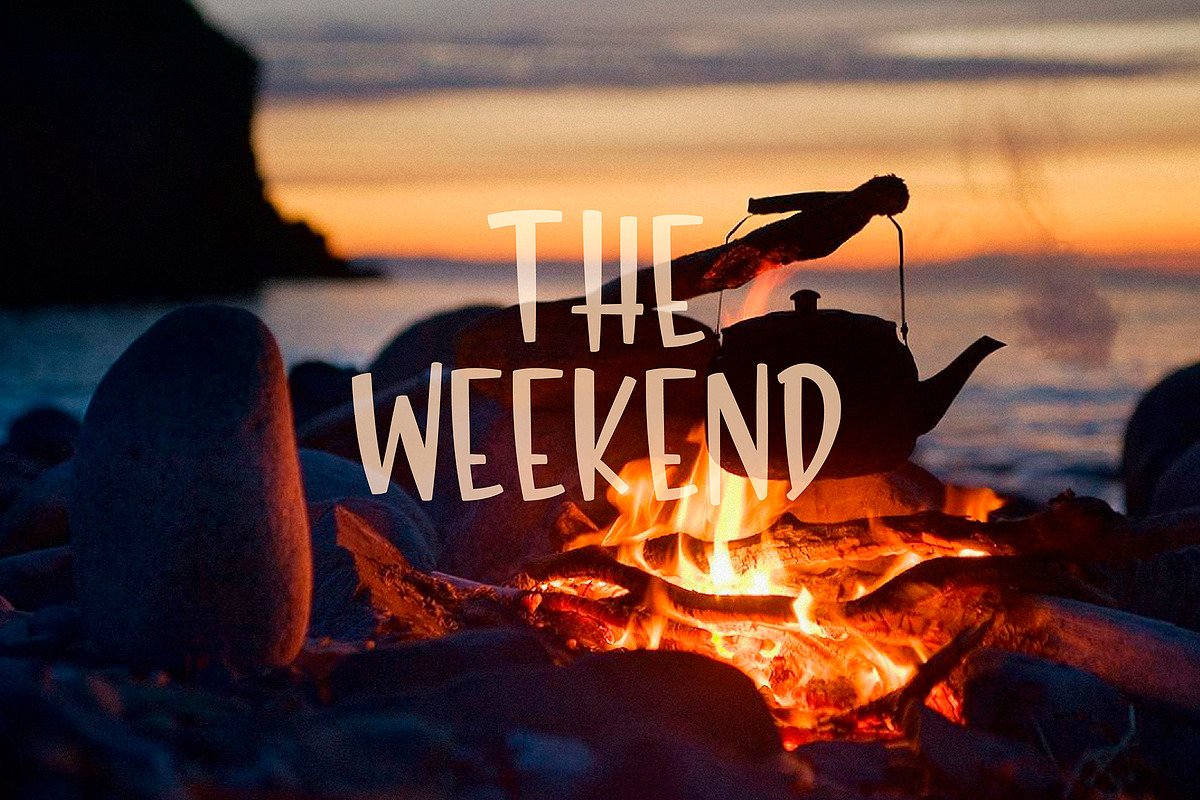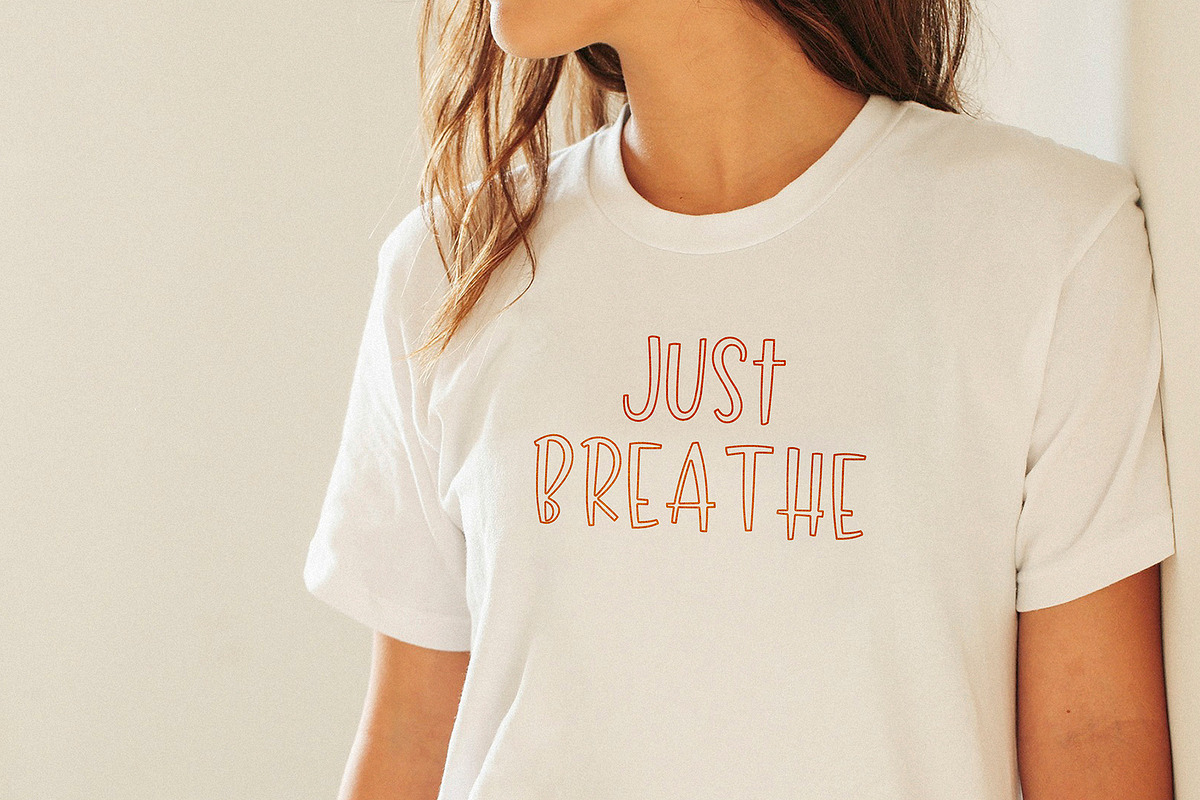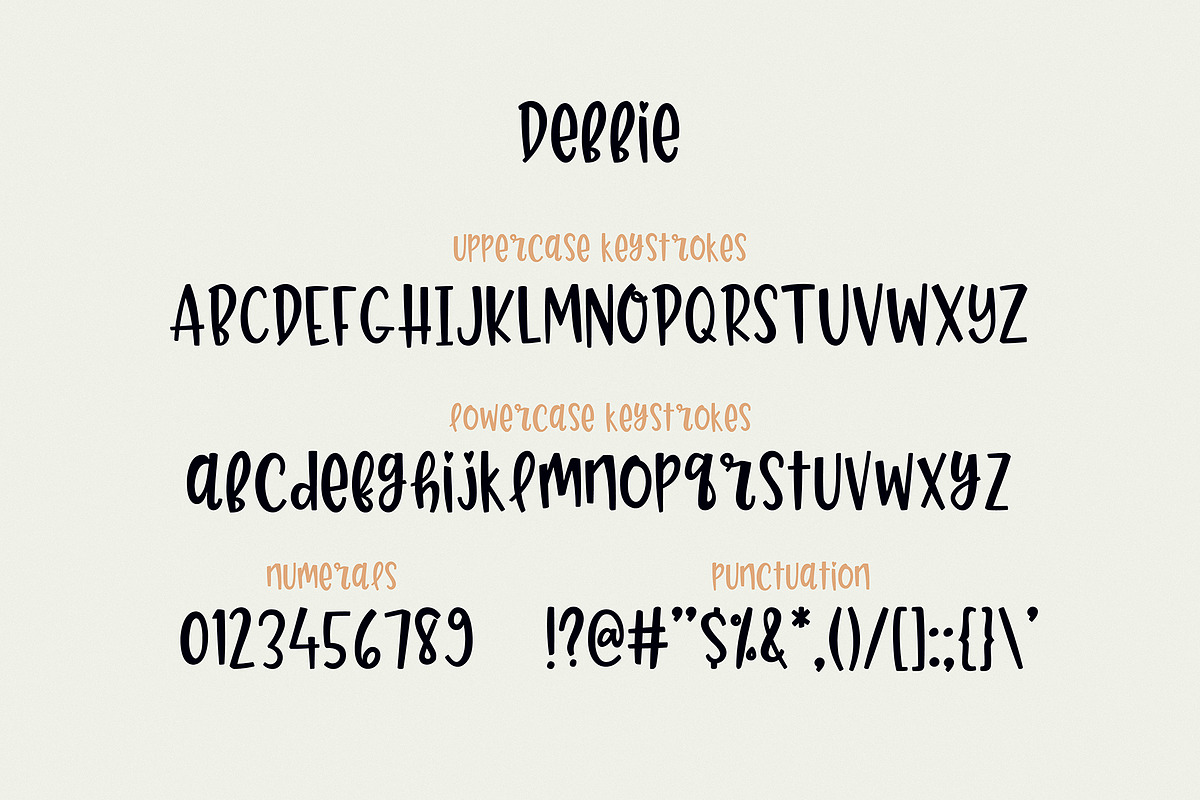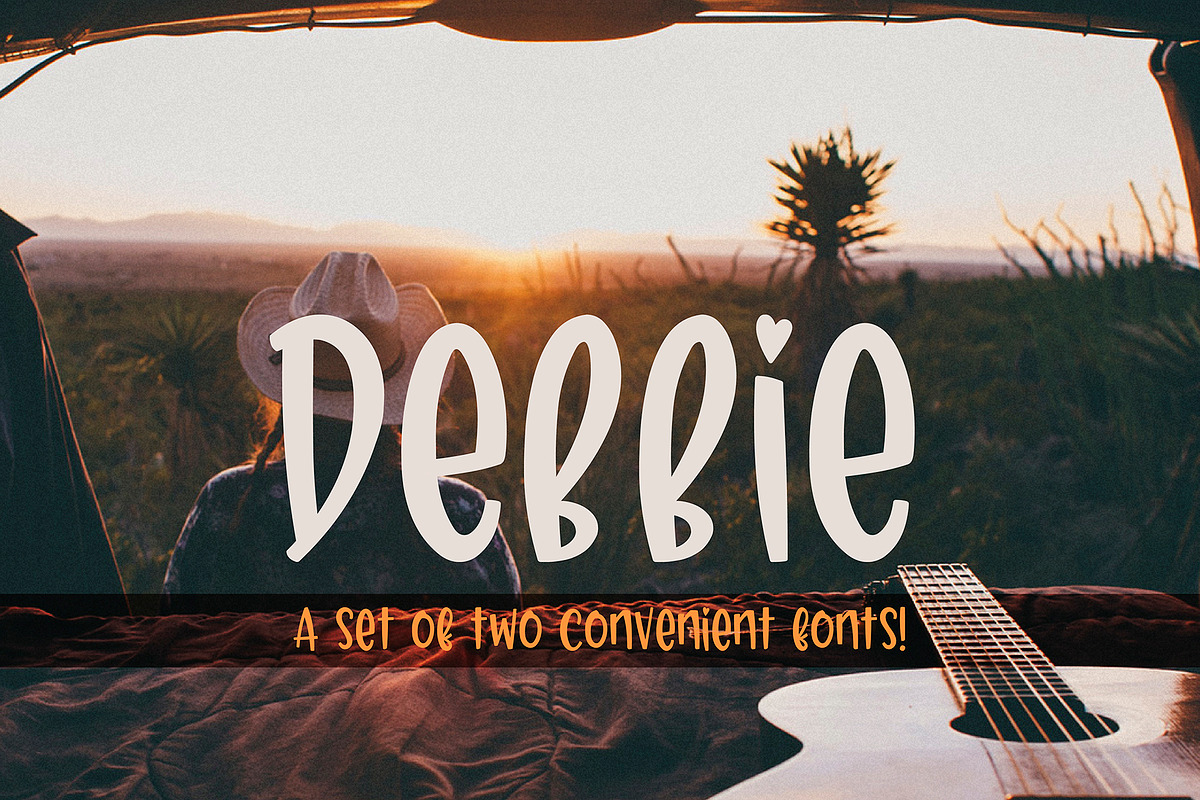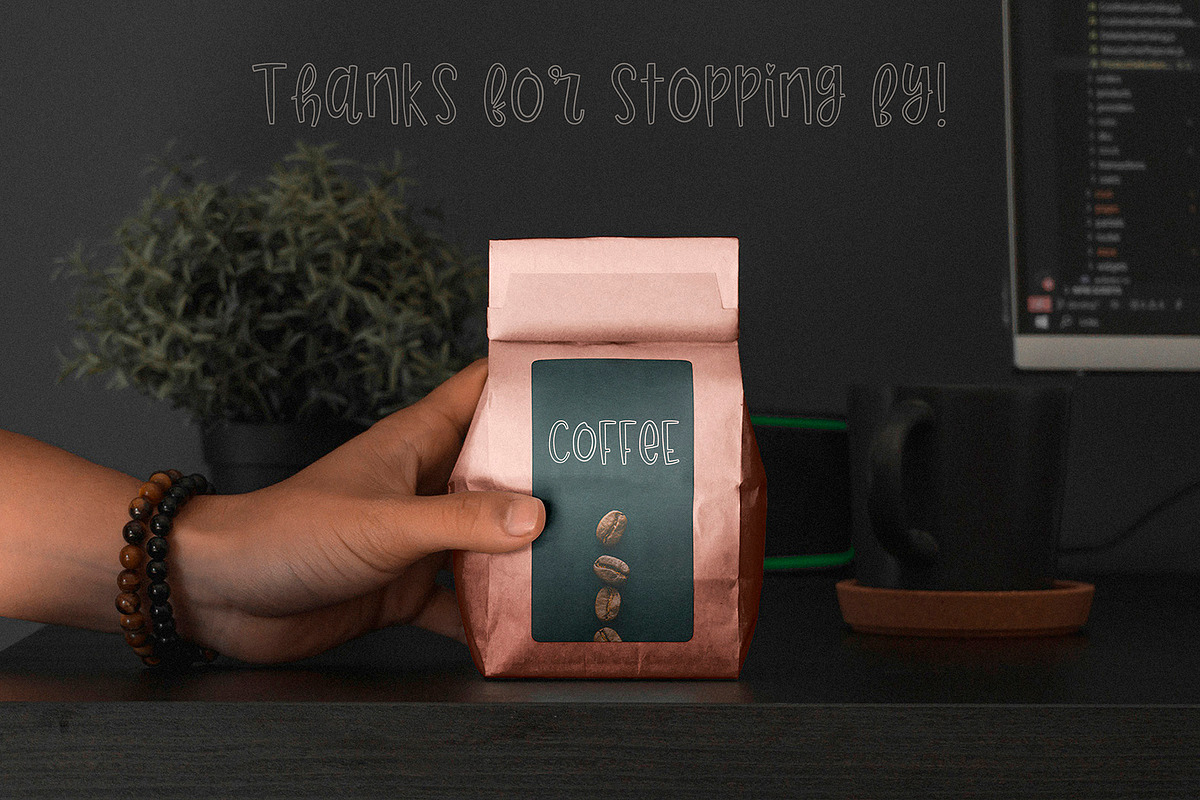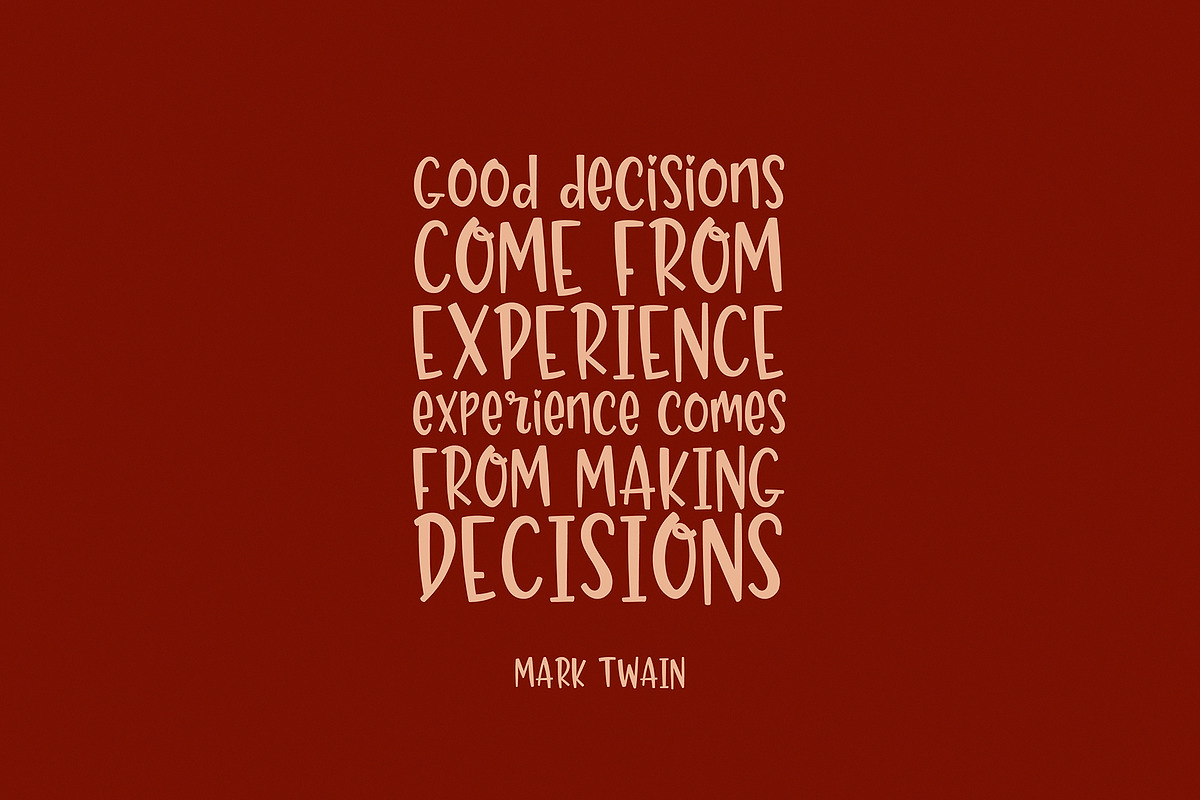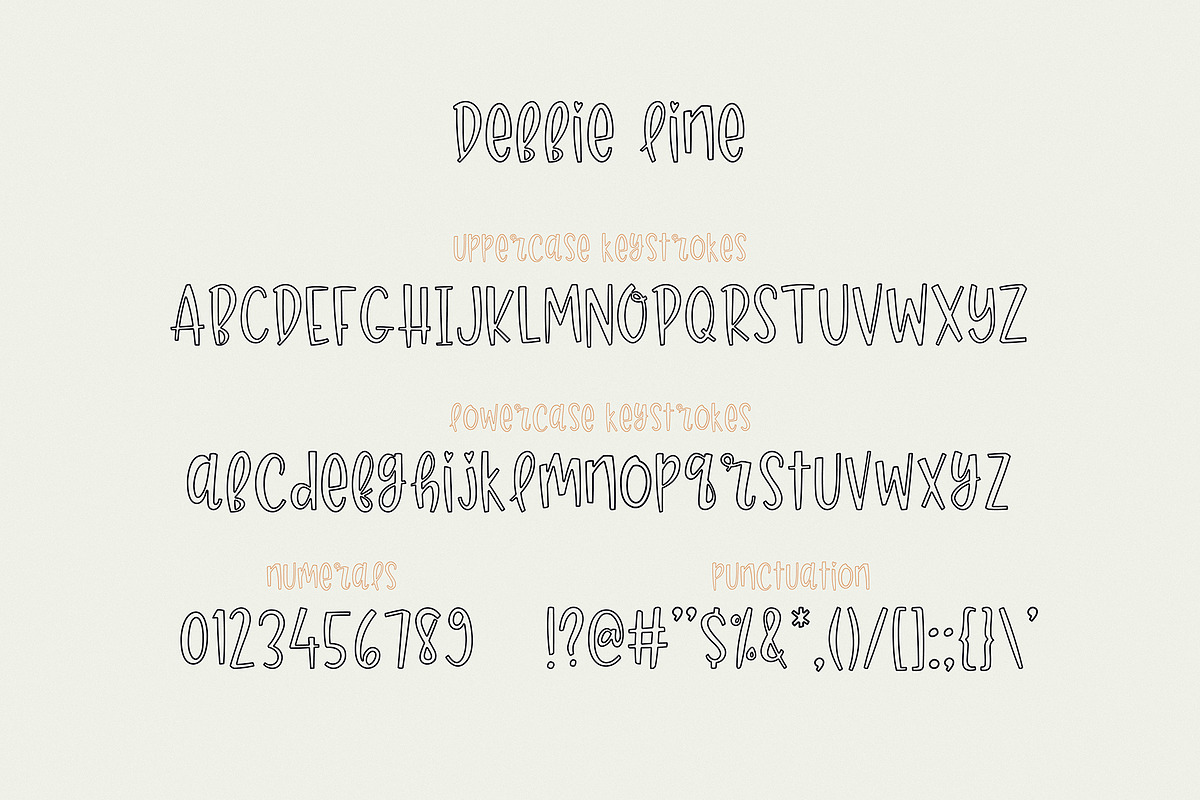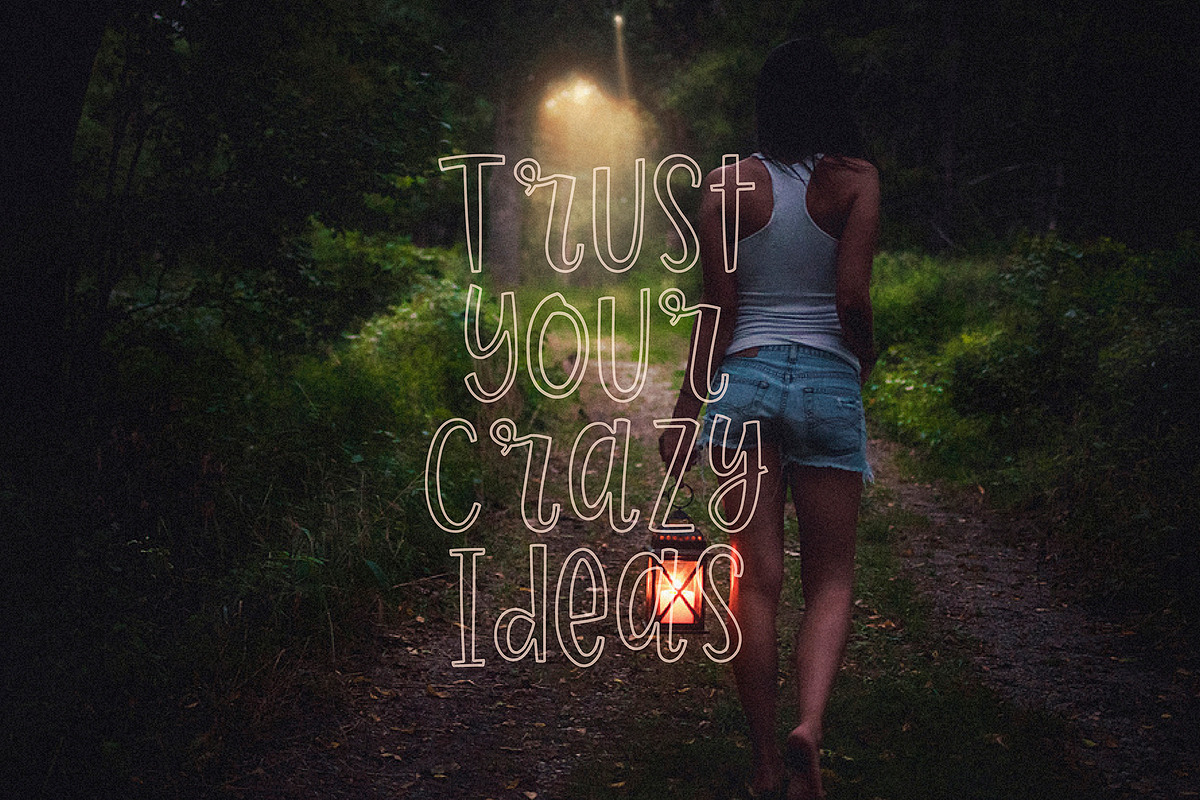
Debbie - SVG Font Set!
I am very pleased to present you Debbie – a universal set of handmade fonts!
Thanks to the very clear weight contrast and authentic matte style, Debbie is guaranteed to give your text an individual, individual feel – a fancy, freshly baked font is perfect for greetings, adding to illustrations, children’s books, delicious packaging, labels, printed quotes, logos and much more!!
- A-Z; a-z character set;
- numbers and punctuation marks, symbols.